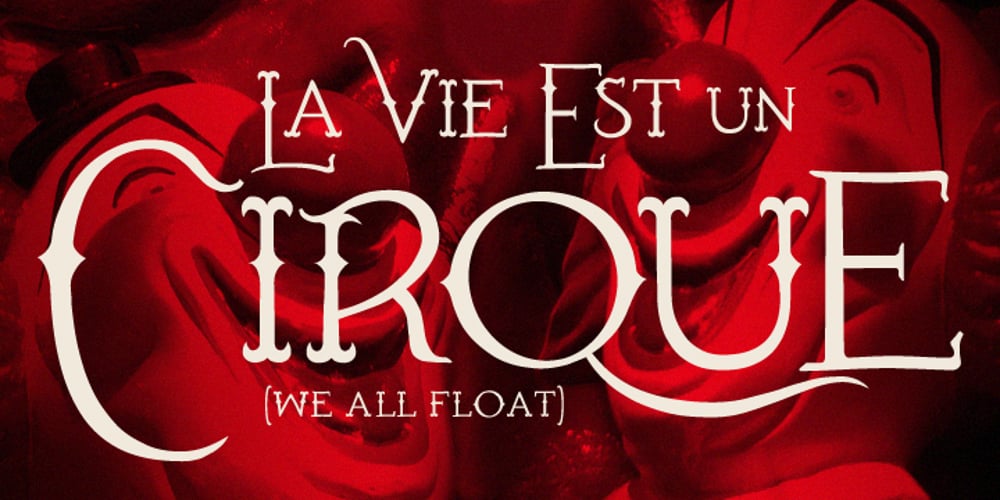
Cirque Font Family was designed by Matt Frost and published by Matt Frost. Cirque contains 1 styles and family package options. Cirque is a lively Western/Circus/Victorian/Whatever font—it’ll fit in wherever you want to stick it to old Tschichold and make something cool instead. Mix up caps and lower case for curious results. To see more check out the Frost Foundry page at http://facebook.com/frostfoundry